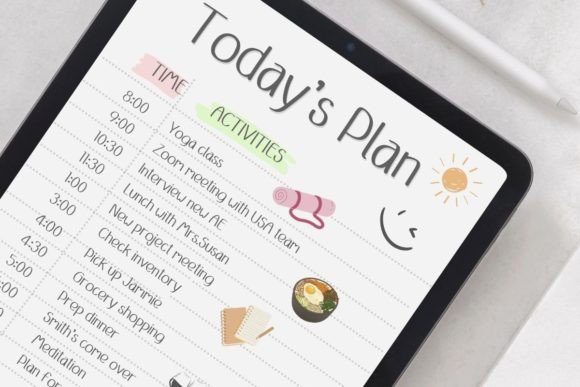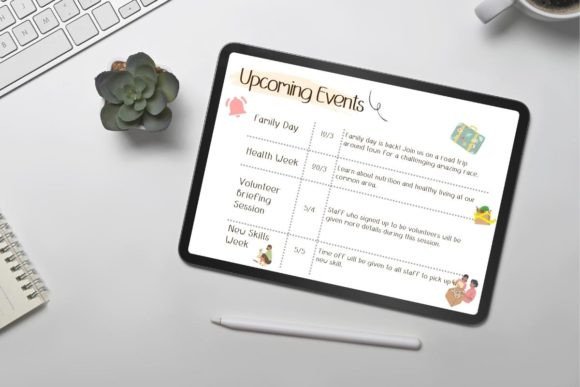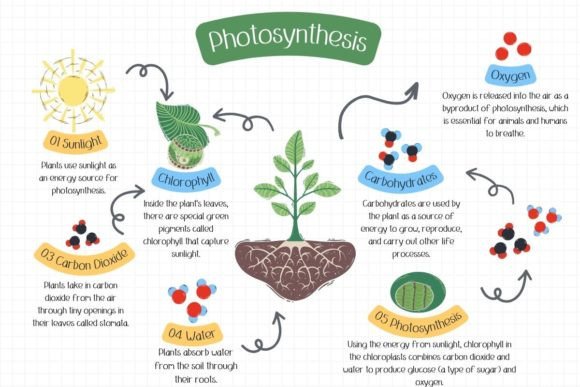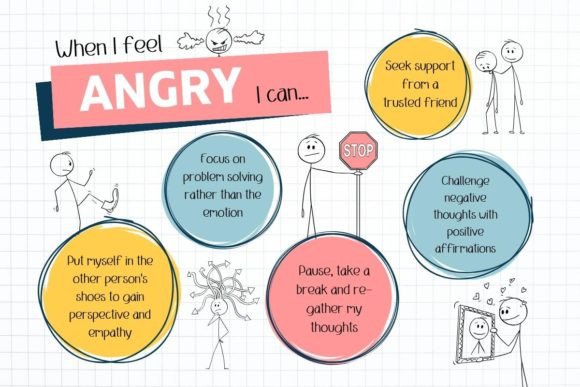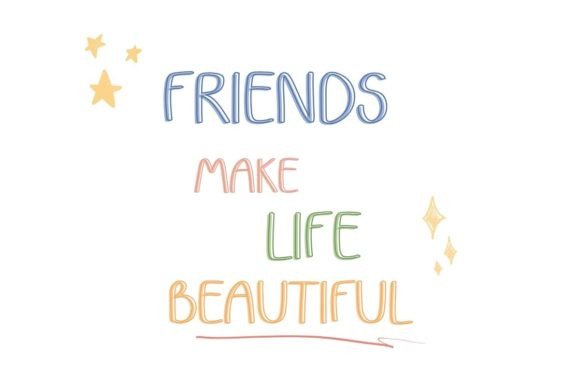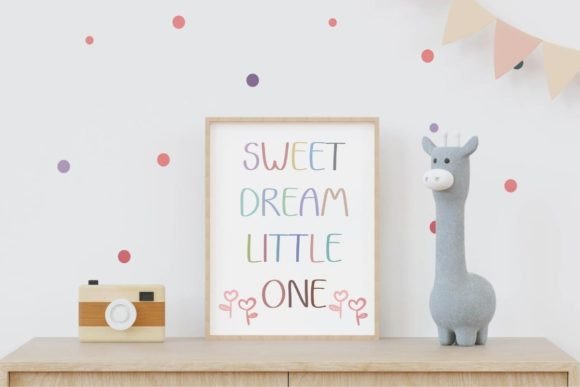
The Charm of Balloon Font: A Designer’s New Best Friend
I’ll never forget the time I was working on a project for a client’s chalkboard-style restaurant menu. I had all the graphics and illustrations ready, but I was stuck on finding the perfect font to give it that authentic, hand-written feel. That’s when I stumbled upon Balloon Font, and it instantly became my go-to for all my design projects that require a personal touch.
An Honest Review of Balloon Font
So, what makes Balloon Font so special? Let’s dive into the good stuff and a few quirks I’ve discovered.
- ✨ Cute and Simple Design: Balloon Font has a charming, bubbly look that’s perfect for chalkboard quotes, teaching materials, and more.
- ✅ Authentic Look: Its unique design gives your work a realistic, hand-drawn feel that’s hard to achieve with other fonts.
- 💡 Versatility: Whether you’re working on a project for kids or adults, Balloon Font adapts well to different themes and styles.
While Balloon Font is amazing for many projects, there are a few things to keep in mind:
- 🤔 Limited Formality: Due to its playful nature, Balloon Font might not be the best choice for very formal or professional projects.
- ⚠️ Legibility at Small Sizes: Like many script fonts, Balloon Font can become a bit tricky to read when scaled down too much.
The Story Behind Balloon Font
While the origins of Balloon Font might not be well-documented, it’s clear that its designer aimed to create a font that captures the whimsy and charm of hand-drawn letters. The result is a font that feels both personal and approachable, perfect for designers looking to add a touch of warmth to their work.
Q: Is Balloon Font suitable for children’s projects?
A: Absolutely! Its playful and simple design makes it an excellent choice for projects aimed at kids.